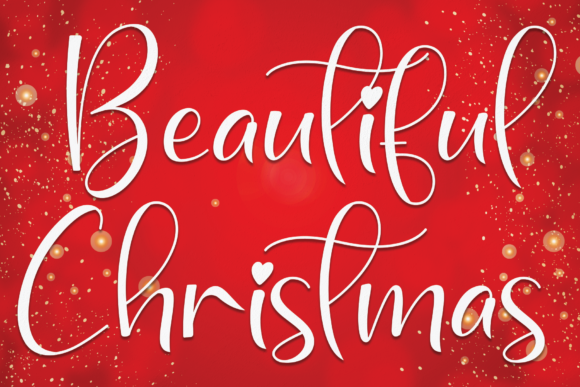
Deck the Halls with a Touch of Whimsy
As the snowflakes start to fall and the festive lights twinkle, many of us get into the holiday spirit by brainstorming creative ideas for our loved ones. Whether it’s crafting handmade gifts or designing festive decorations, the holiday season is a time for imagination and self-expression. And for designers, it’s the perfect opportunity to get creative with typography!
Enter the Beautiful Christmas Font, a delicate script font that adds a touch of romance to any project. With its elegant accents and heart-shaped flourishes, this font is perfect for adding a personal touch to wedding invitations, social media posts, and product packaging. For designers, the Beautiful Christmas Font is a valuable asset, offering a unique and whimsical style that’s sure to set projects apart.
Beautiful Christmas Font Key Features
- Unique Characteristics: The Beautiful Christmas Font features intricate, hand-drawn designs with ornaments, swirls, and festive elements, adding a touch of elegance to any design.
Designer Review: Beautiful Christmas Font
Overall, I think the Beautiful Christmas Font is a solid choice for any holiday-themed project. Here’s what I like about it: ✨
- Unique and festive design: The font has a distinct, hand-painted feel that’s perfect for adding a touch of whimsy to your holiday graphics.
- Wide range of characters: The font includes a variety of special characters, including ornaments, snowflakes, and more, which can be used to add visual interest to your designs.
- Easy to read: Despite its decorative nature, the font is still easy to read, making it a great choice for body text or headings.
- Limited versatility: While the font is perfect for holiday-themed projects, it may not be the best choice for everyday use or other types of projects.
- No bold or italic variations: The font only comes in regular weight, which may limit its use in certain design contexts.
Overall, I’d give the Beautiful Christmas Font 4 out of 5 stars. It’s a great choice for holiday projects, but may not be the best fit for every design situation.
The Beautiful Christmas Font is ideal for:
– Holiday greeting cards and invitations
– Christmas party decorations and signage
– Gift tags and wrapping paper
– Social media posts and ads